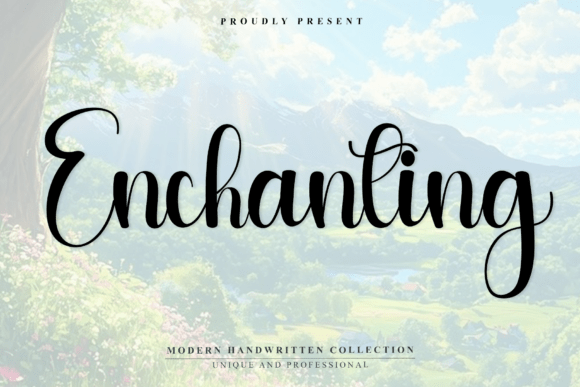
Unlocking the Magic of Handwritten Charm
As a designer, you’ve probably experienced that moment when you’re brainstorming ideas and suddenly, a spark of creativity hits you – the perfect font to bring your concept to life. For me, it was the discovery of the Enchanting Font, a stylish handwritten typeface that perfectly captures the essence of organic charm and typographic sophistication.
With its thick, solid strokes and distinct “bouncy” rhythm, the Enchanting Font exudes a friendly and approachable character, making it an ideal choice for outdoor lifestyle branding, organic product packaging, and travel-themed graphics. Its well-balanced proportions ensure it remains impactful even in busy designs, making it a valuable addition to any designer’s toolkit.
Enchanting Font Key Features
- Unique Characteristics: Enchanting Font features a unique blend of modern and vintage elements, making it suitable for a wide range of design applications, from branding to publishing.
Enchanting Font Review
I recently had the chance to work with the Enchanting Font, and I must say, it’s a unique and captivating addition to any design project. ✨ The font’s whimsical, hand-drawn style adds a touch of magic to text, making it perfect for fantasy or fairy tale-themed projects. The character set is also quite comprehensive, with a wide range of punctuation and special characters.
- The font’s flexibility in size and style is impressive, allowing for a range of uses from titles to body text.
- The subtle variations in letterform and spacing create a sense of movement and flow, making it engaging to read.
- The font’s charm is amplified when paired with complementary colors and graphics.
However, there are some limitations to consider. ⚠️ The font may not be suitable for projects requiring a more formal or professional tone, as its playful nature can come across as immature or gimmicky. Additionally, the font’s complexity can make it challenging to use in smaller text sizes or on low-resolution screens.
Overall, the Enchanting Font is a delightful addition to any designer’s toolkit. While it may not be suitable for every project, its unique charm and flexibility make it a great choice for designers looking to add a touch of whimsy to their work.